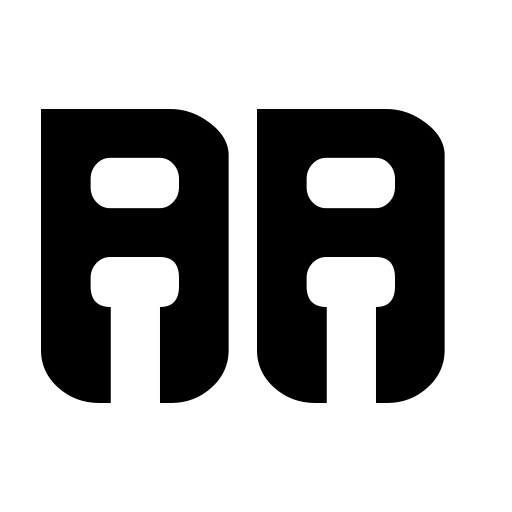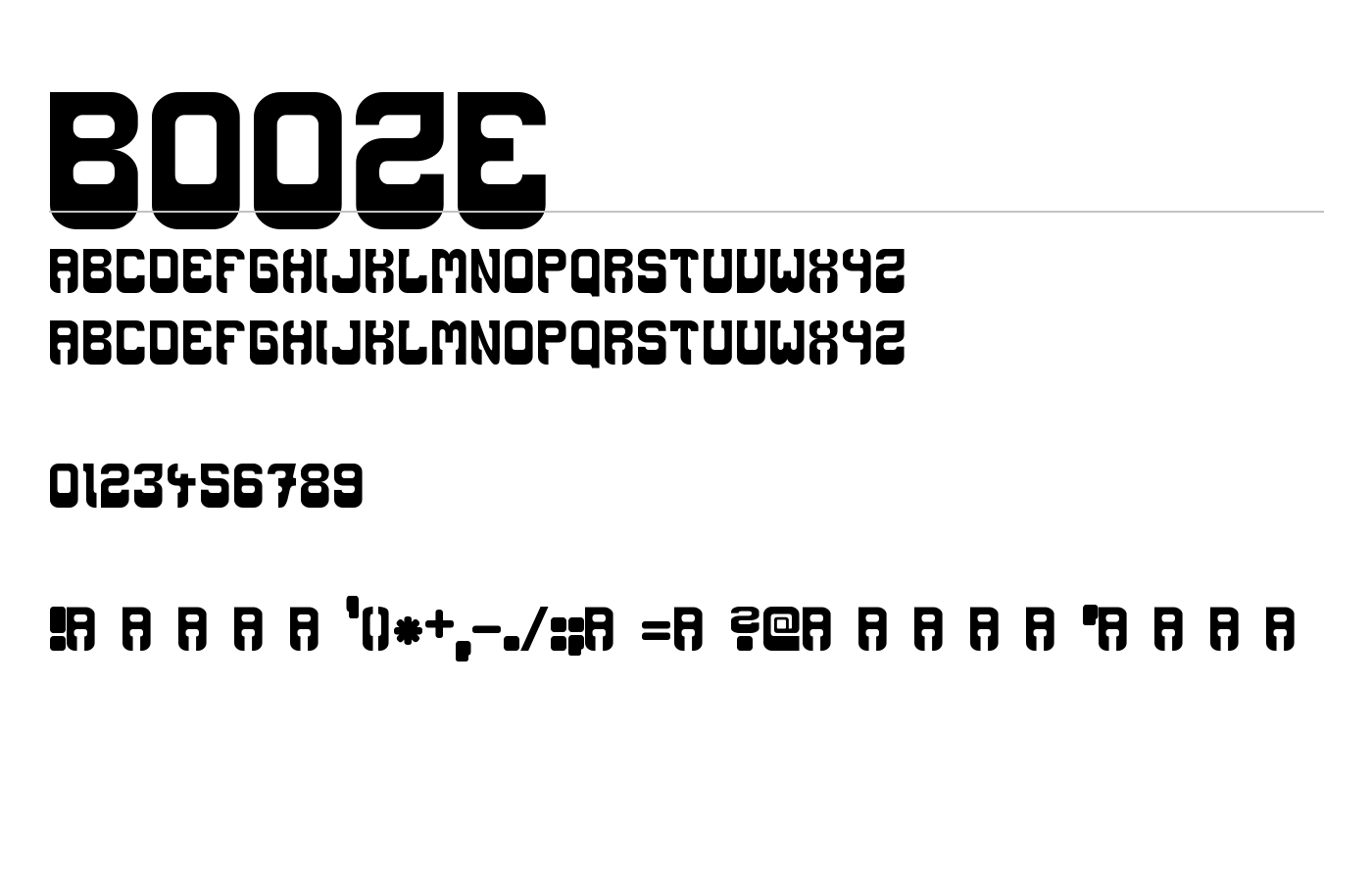
Booze Font is a bold, futuristic sans serif with a unique blend of sharp angles and rounded corners, giving it a robotic yet approachable feel. Its condensed width and high contrast strokes make it eye-catching for headlines, logos, or posters where a modern and tech-inspired vibe is desired. This font shines in designs that aim to communicate innovation and boldness with a touch of playfulness.
Booze Font
About Booze Font